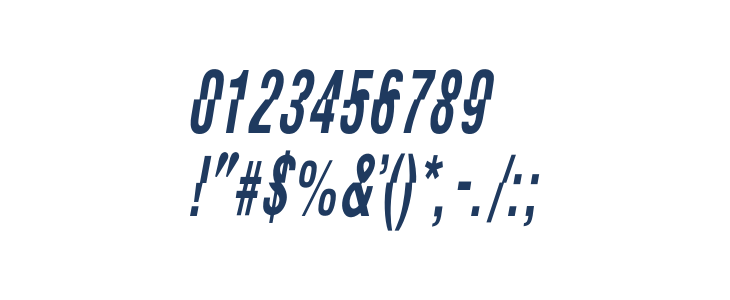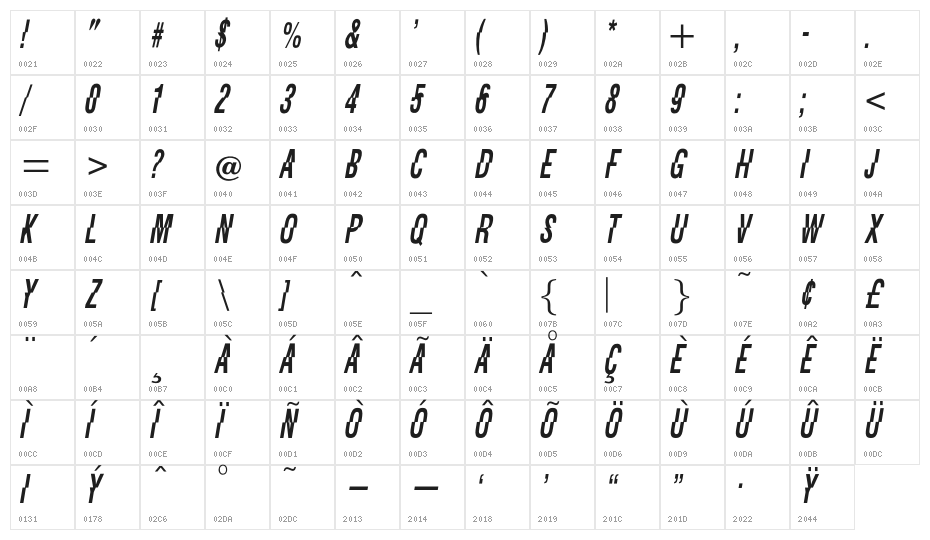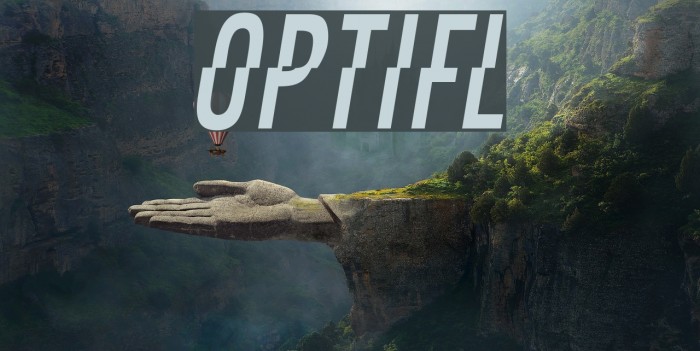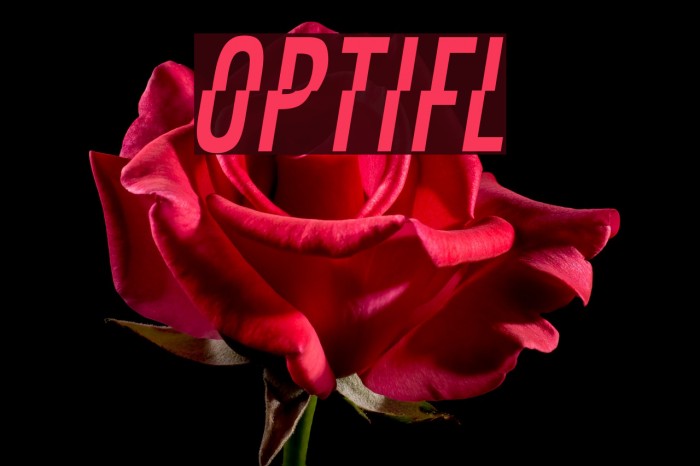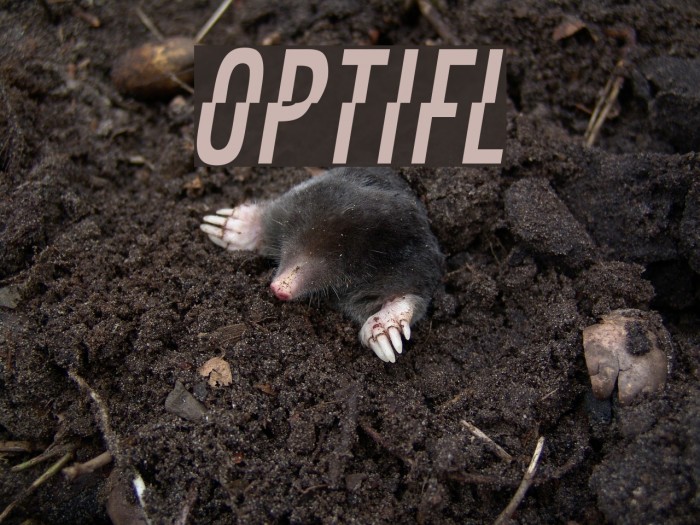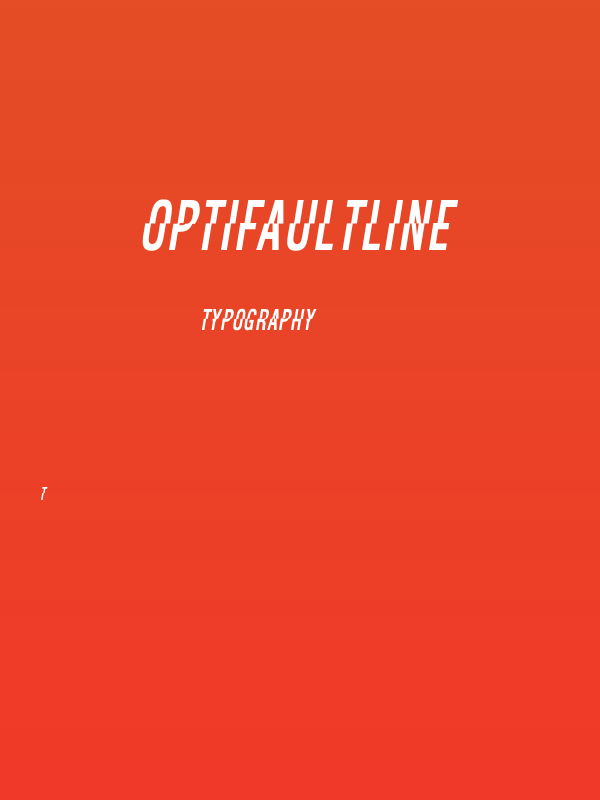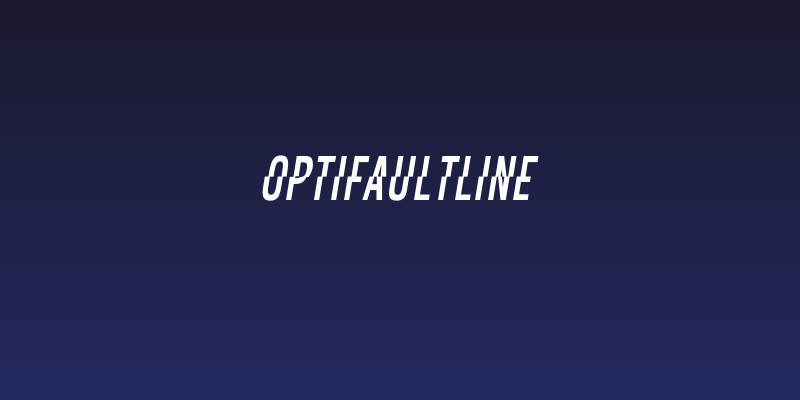
OPTIFaultLine Font
OPTIFaultLine Description
This font features a dynamic and edgy design with a distinct slanted appearance, giving the impression of movement or speed. The characters are bold and slightly condensed, with a unique cut or 'fault line' running through each letter, adding a sense of disruption and modernity. The uppercase letters are particularly striking, with sharp angles and a clean finish. The numerals and special characters maintain this style, ensuring consistency across all glyphs. This font is ideal for projects that require a bold statement or a modern, unconventional look.
| Proposed Projects | Ideal for branding, posters, album covers, and any design needing a bold, modern edge. |